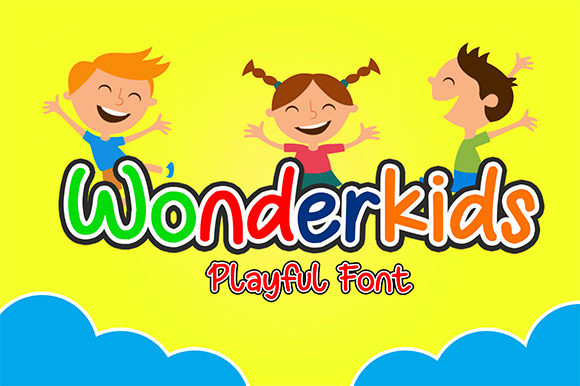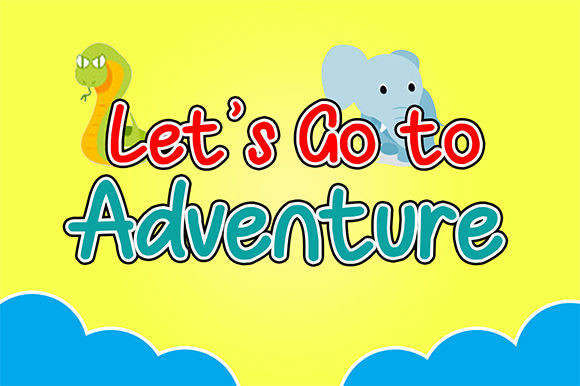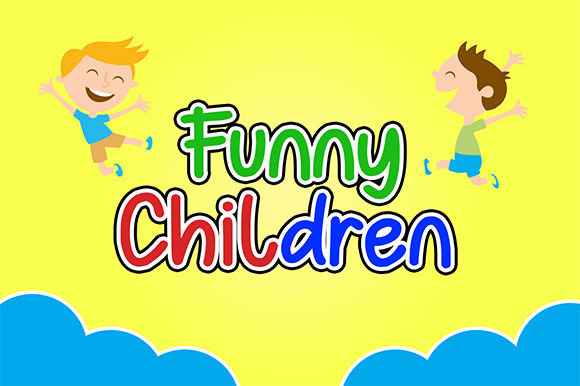
Wonderkids Font
Wonderkids is a fun and child-themed display font that’s full of life. It will add a friendly and quirky feel to any design project! The playful rounded characters make it the perfect font for creating stunning school projects or children’s art. Wonderkids will allow you to add a whimsical touch to your crafting projects within seconds.
Get inspired by its dynamic and playful feel and use it to create gorgeous birthday party invitations, cheerful stationery art, eye-catching social media posts, or cute greeting cards.